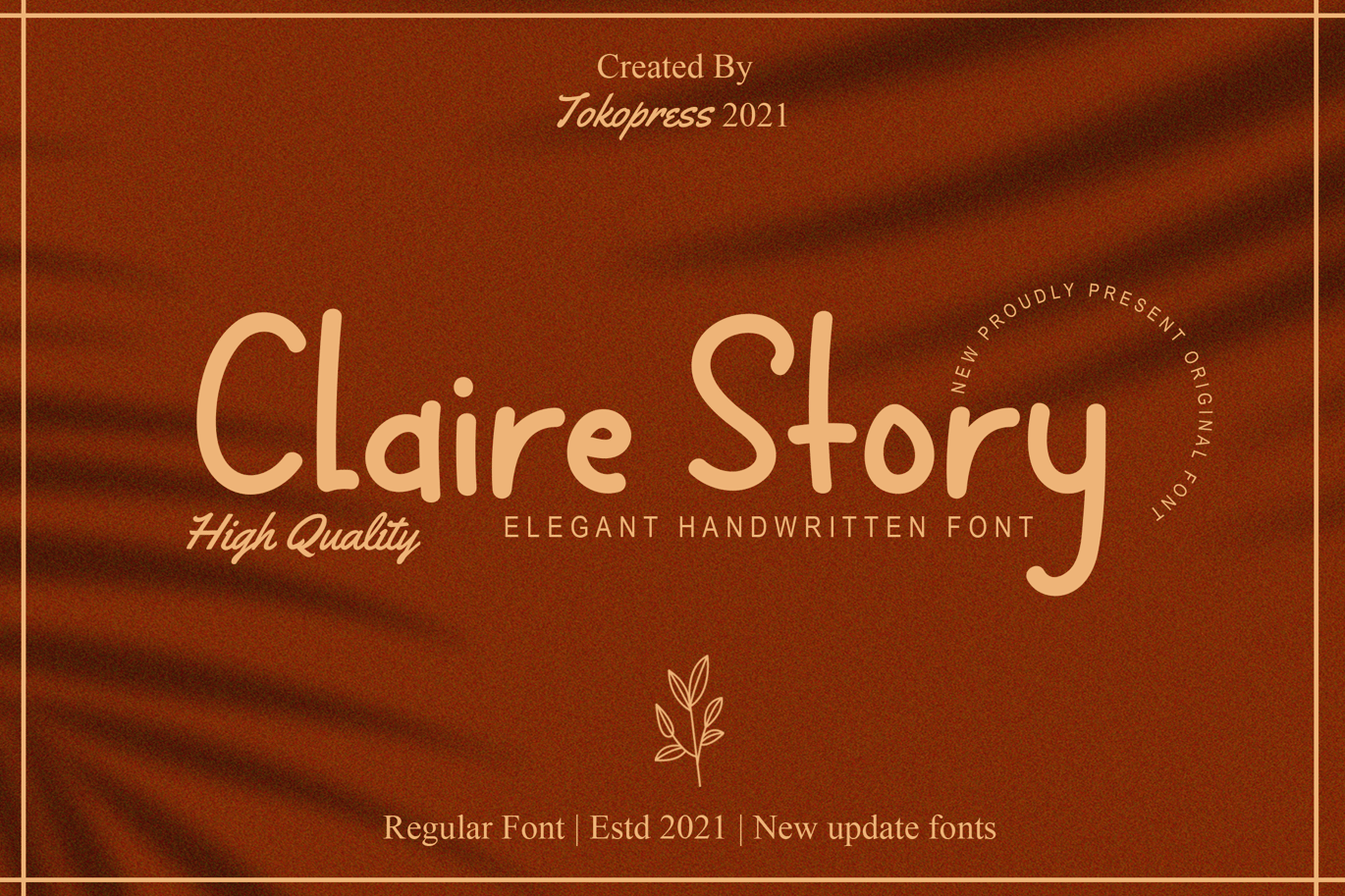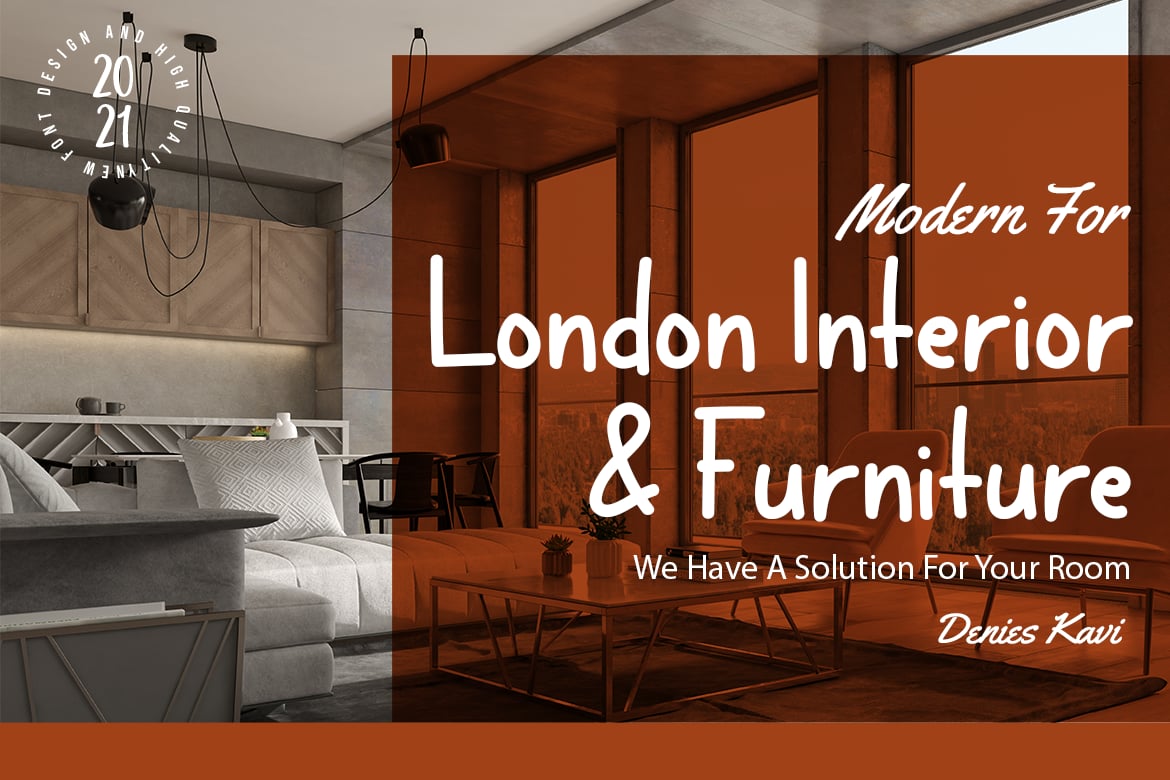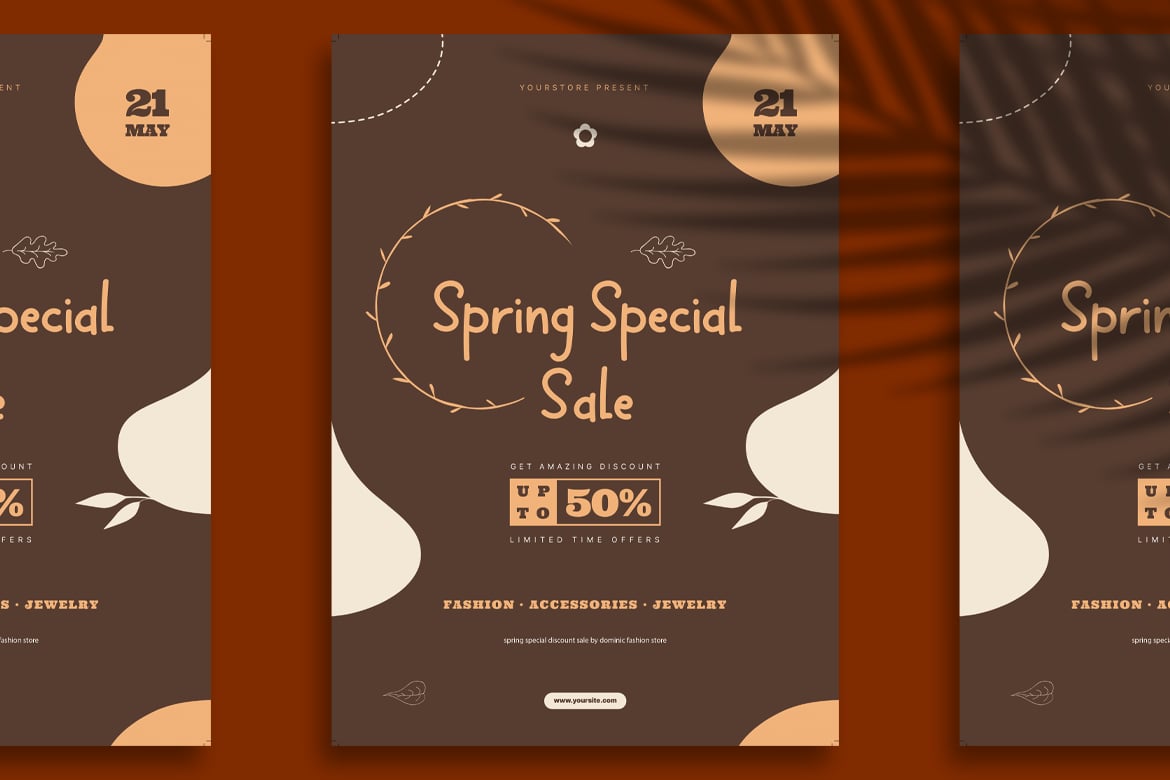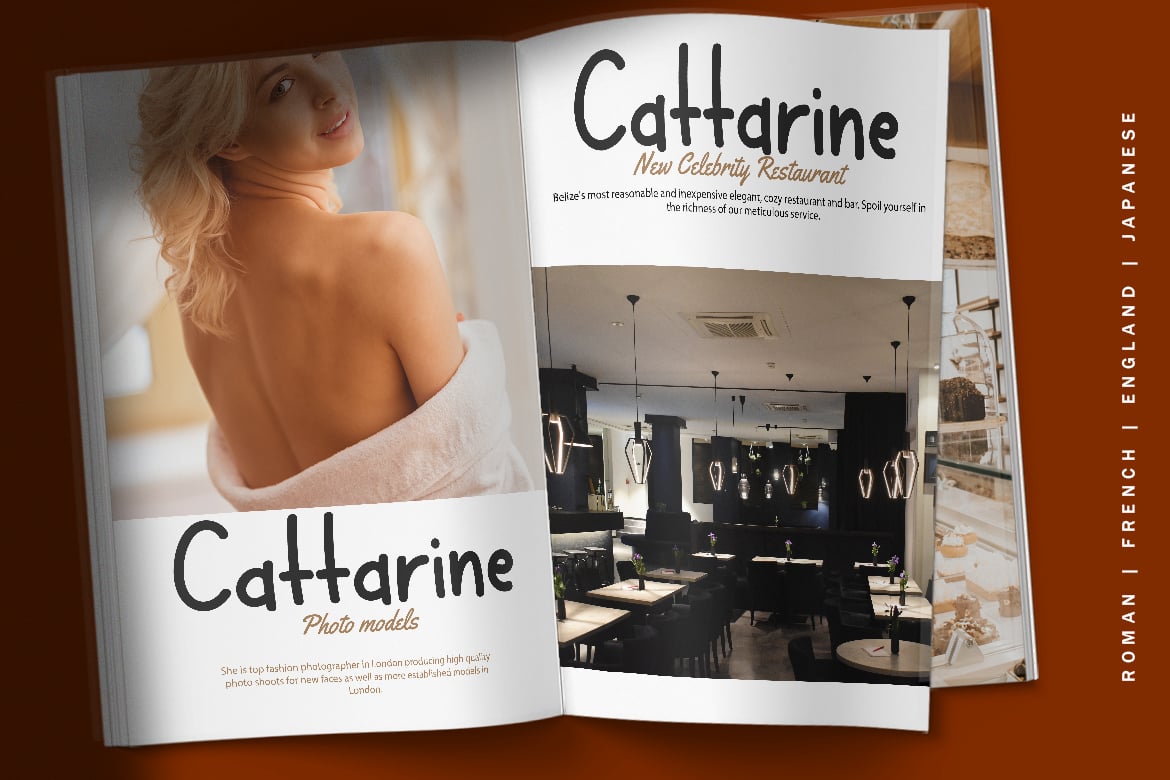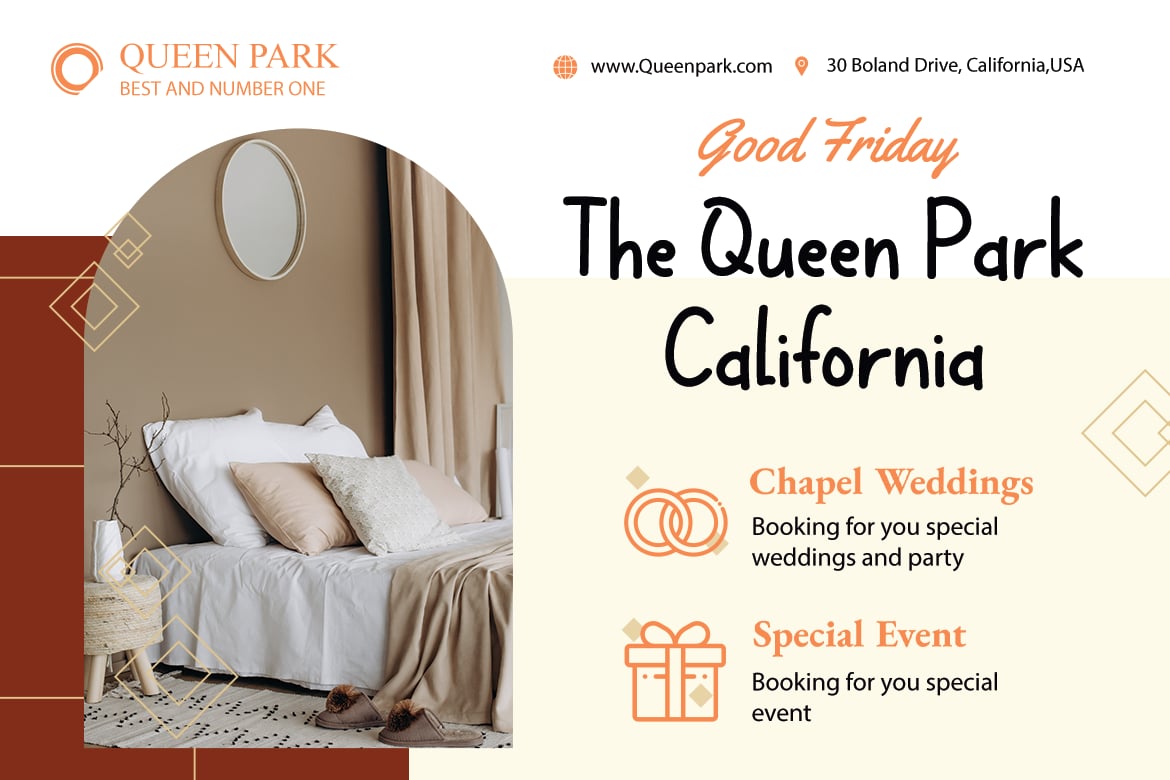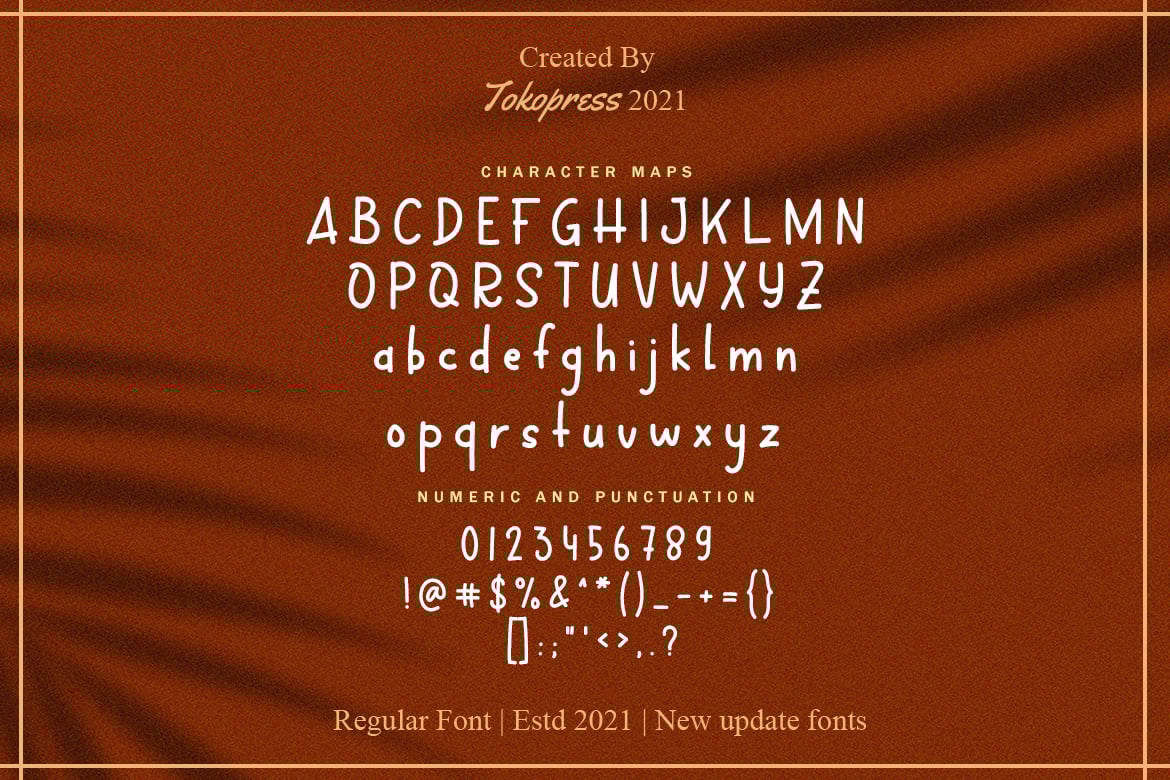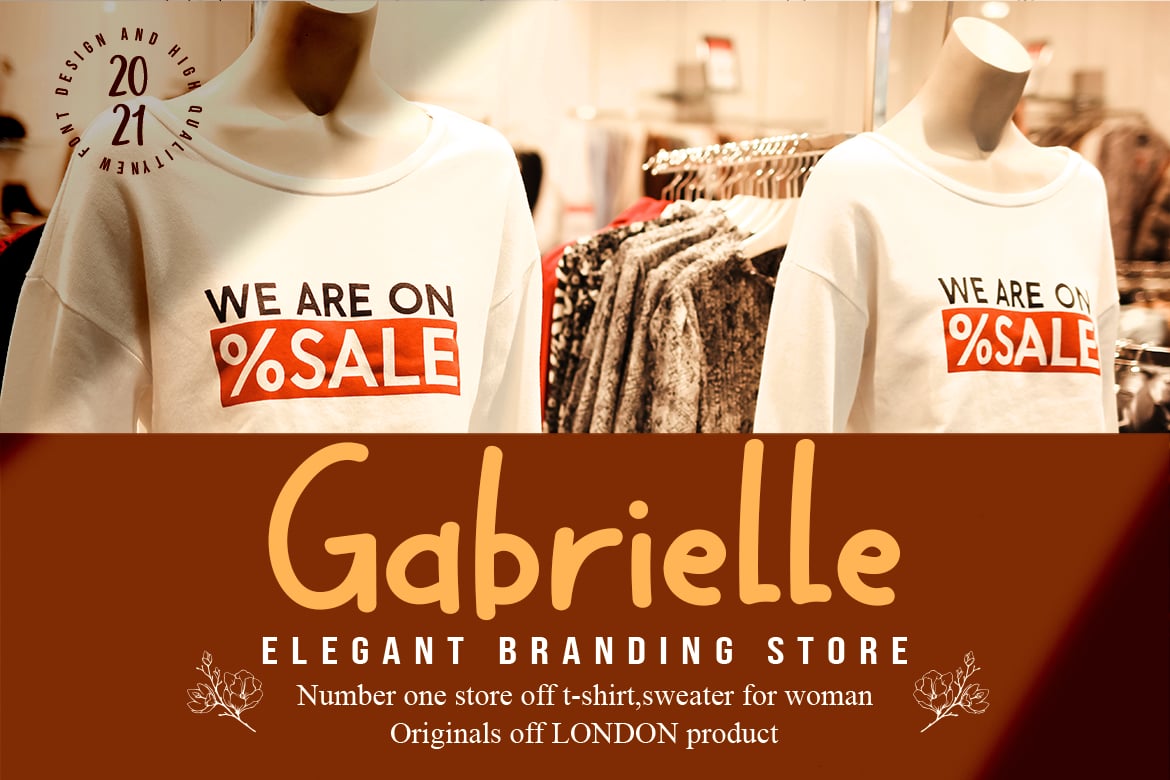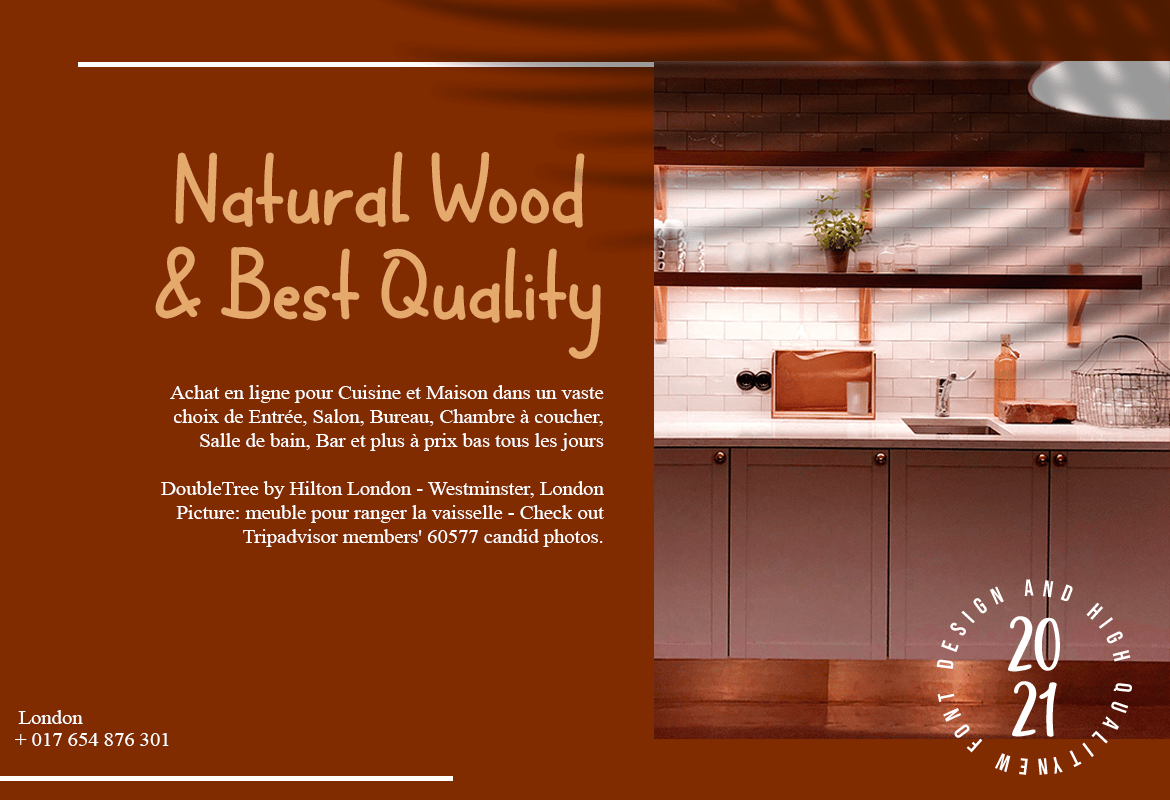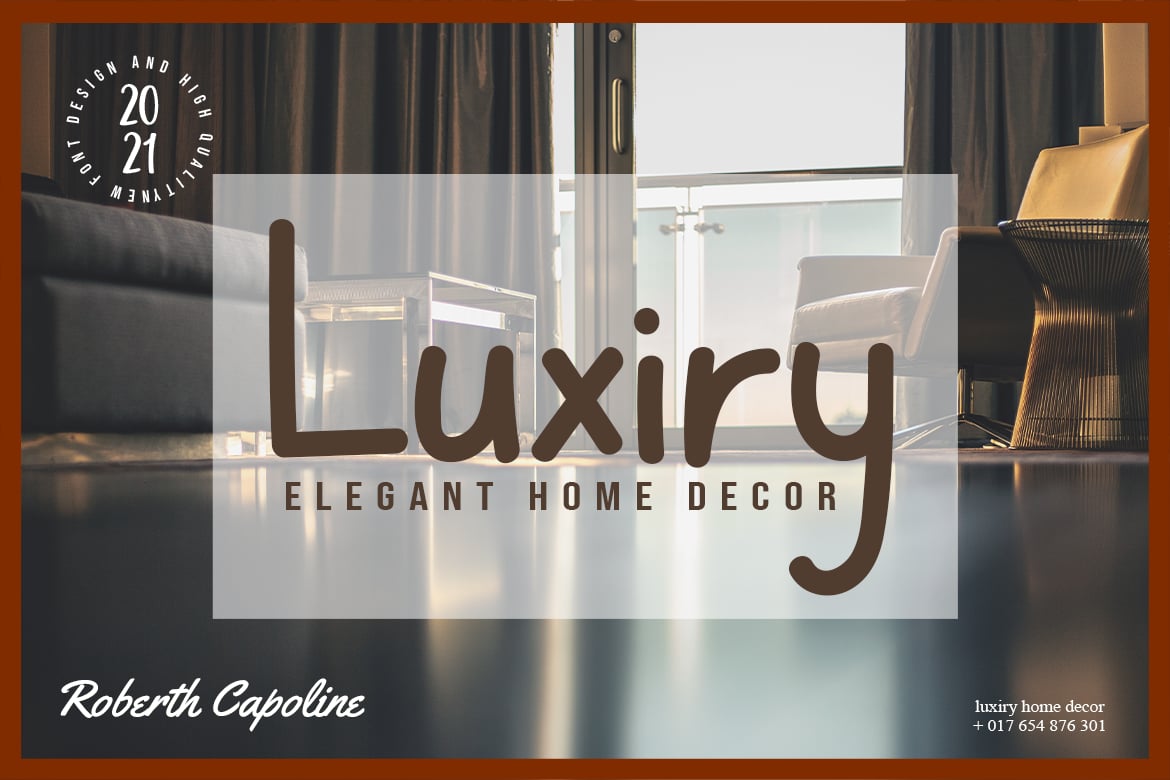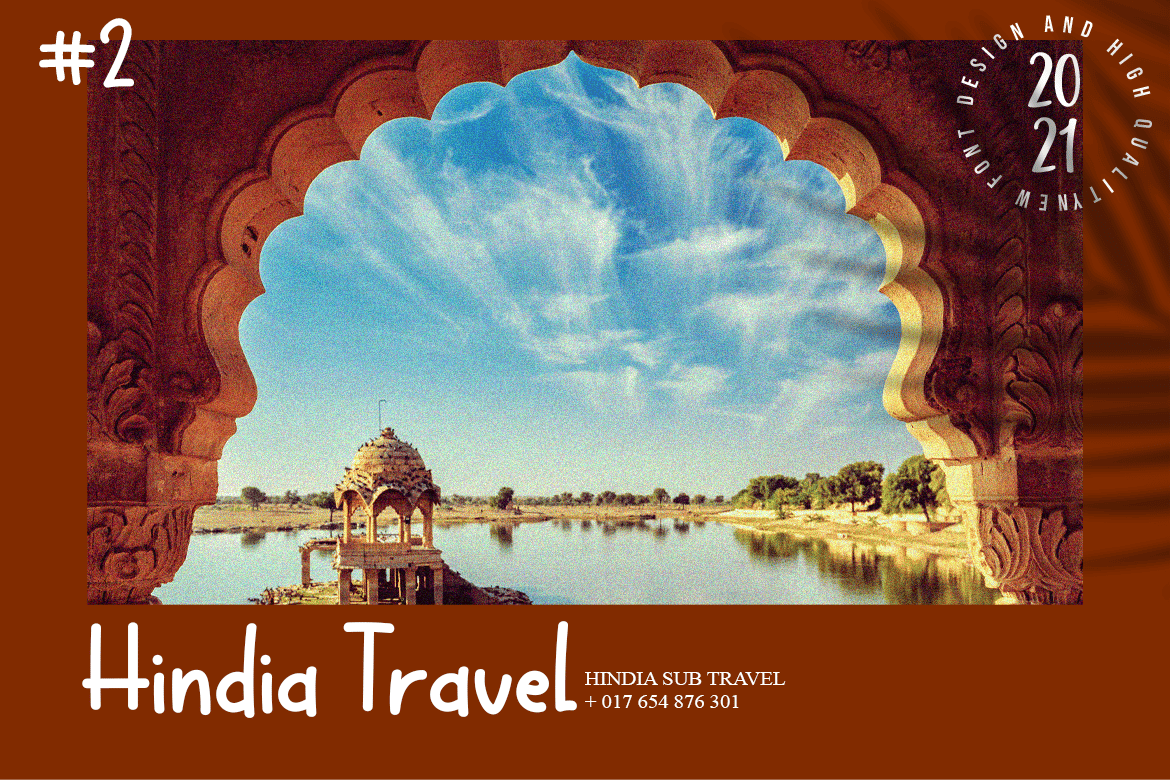
Claire Story – Girly Handwriting font
Claire Story – Hnadwriting font
Light on the feel and sincere on the look, Claire Story will bring the friendliness athmosphere on the writing you created.
Suit perfectly for Girl/ Woman segmented magazine, poster, movie title, travel and leisure poster, youtube covers, youtube thumbnails, social media page covers and so on…